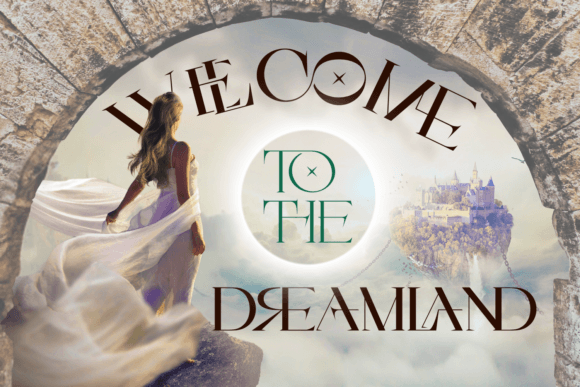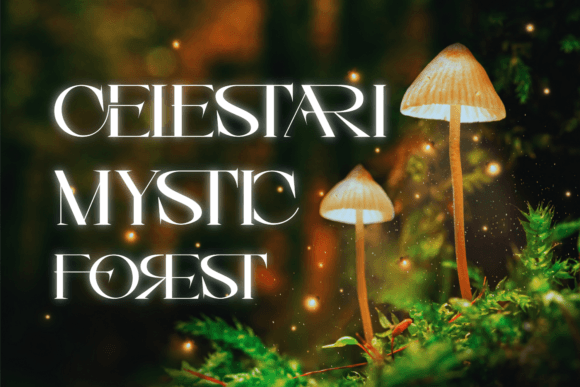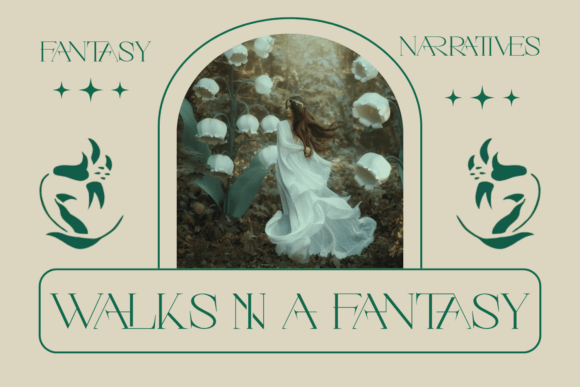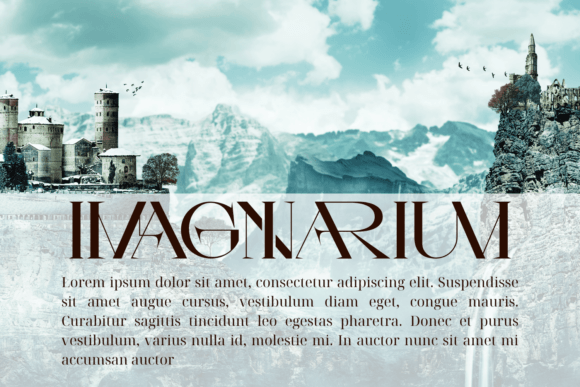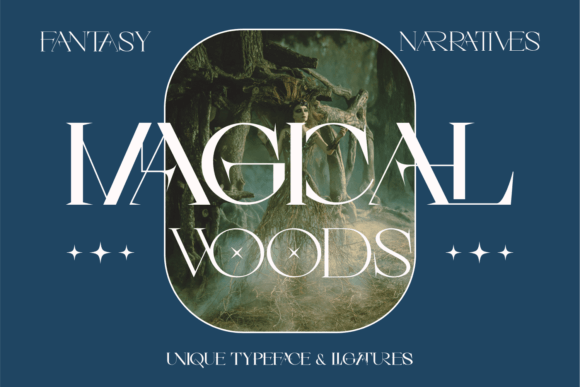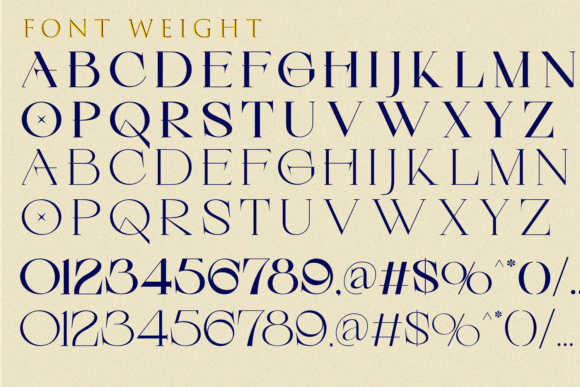
Introduction to Fantasy Narratives Font
Fantasy Narratives font is a captivating serif typeface inspired by the enchanting world of fantasy games.
Its intricate details and elegant curves evoke a sense of adventure and mystique, making it perfect for titles, book covers, and designs that transport readers to magical realms and epic adventures .
Key Features of Fantasy Narratives Font